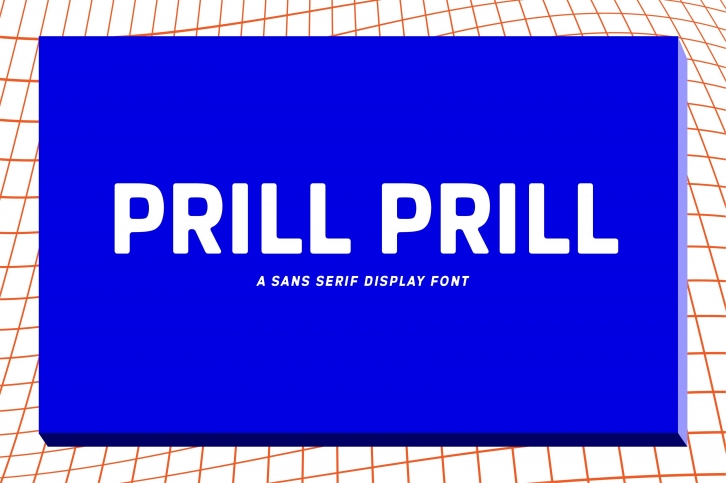
prill font is a sans serif display font. Basically this font is designed with geometric principles. There are have two choices of styles regular - italic to choose from as needed. Suitable for all any creative project. Will make each project easier and more playful.